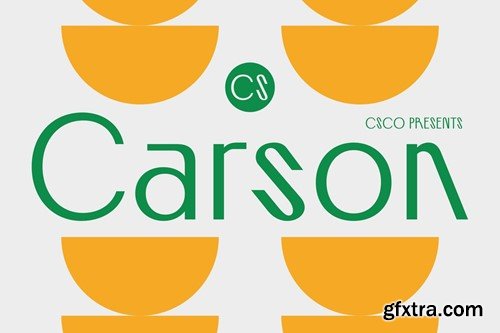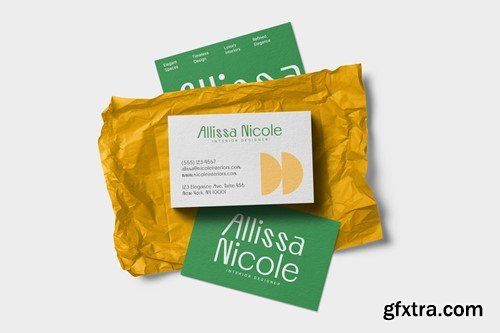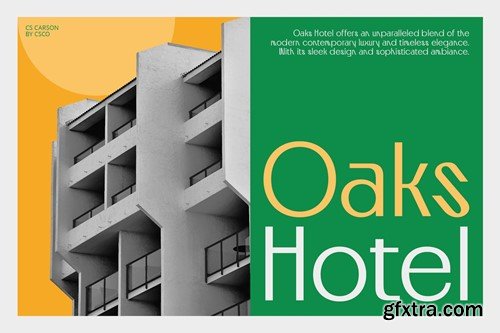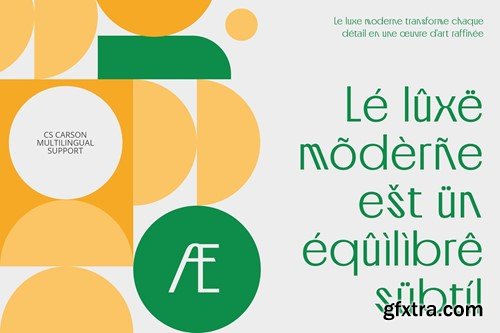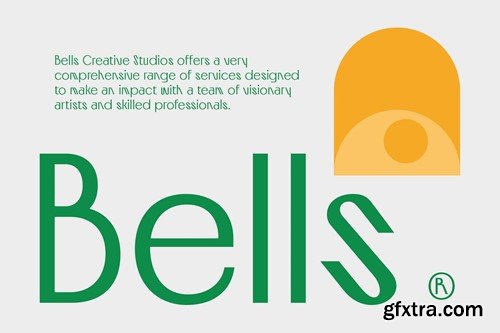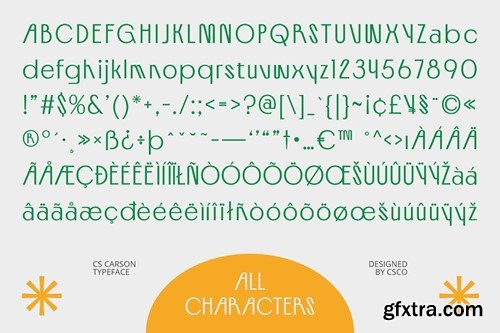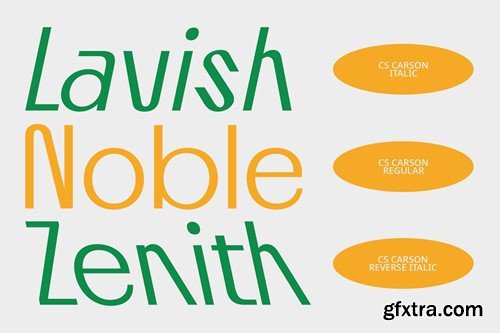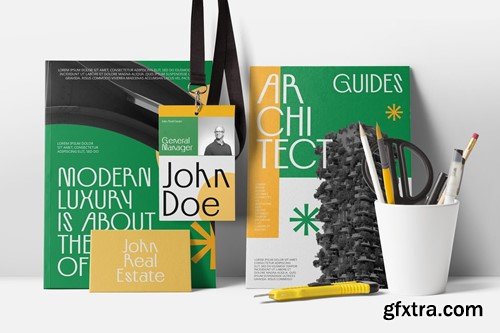
CS Carson – Contemporary Font: Sleek Sophistication for Modern Designs Modern Sans-Serif with a Contemporary Aesthetic CS Carson is a modern sans-serif font that embodies a contemporary and sophisticated look. Its design features clean lines and balanced geometric shapes, creating a sleek and elegant appearance that suits a variety of modern design needs. Optimal Proportions and Minimalist Structure With its carefully crafted proportions and minimalist structure, CS Carson delivers a professional and polished impression. The font’s balanced design ensures clarity and readability, making it ideal for applications where both style and functionality are paramount. Ideal for Web Design and Branding Perfect for web design, branding, and promotional media, CS Carson excels in creating a fresh and relevant look. Its modern aesthetics and high readability make it a versatile choice for a range of contemporary applications, including digital platforms, marketing materials, and corporate identities. Versatile for Professional and Contemporary Uses Whether you’re working on a sleek website, an eye-catching brand identity, or dynamic promotional materials, CS Carson provides a sophisticated solution. Its contemporary design ensures it remains stylish and effective across various modern contexts, offering a fresh and polished appearance. What you get : Features : If you have any inquiries or need assistance, please feel free to contact us. We appreciate your support in enhancing your creative projects! Best regards, Craft Supply Co.